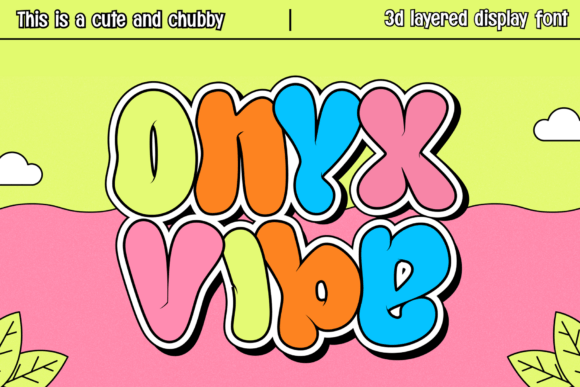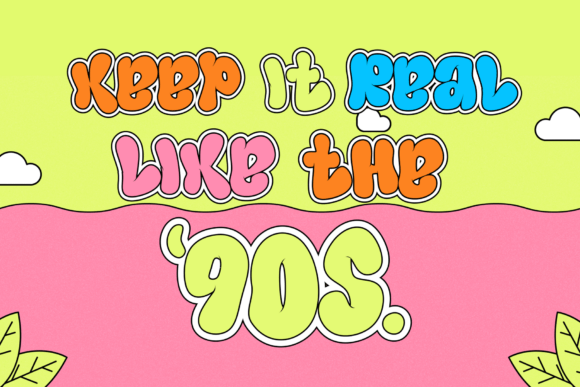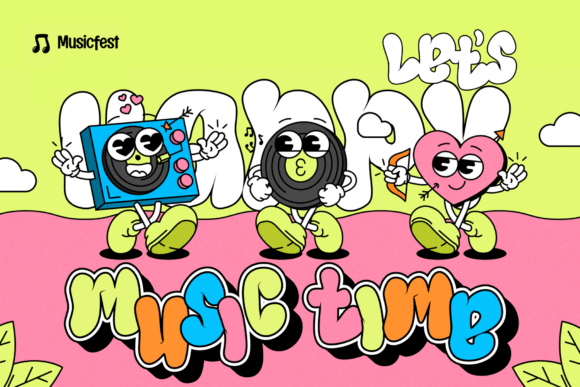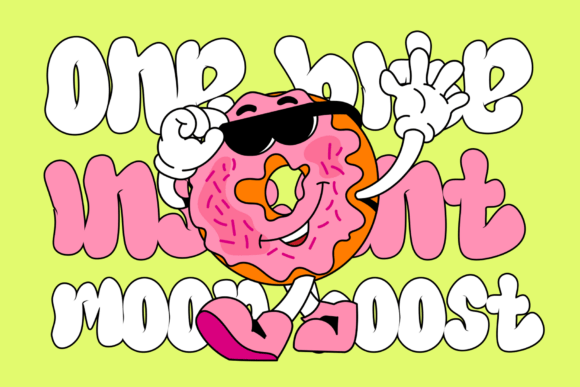
Onyx Vibe Font
About the Onyx Vibe Font
Add a touch of class to your work with the Onyx Vibe Font, a truly exceptional typeface. Introducing Onyx Vibe – embodying a delightful blend of playfulness and round-edged charm. This 3D layered display font embraces an affable silhouette that infuses a whole lot of joy and a bubbly flair into your designs. Enhanced with a multiple-layer style, Onyx Vibe creates an exhilarating depth that adds a fresh spin to your work.
Whether it’s a child-centric project, packaging needs, spirited branding initiatives, or peppy social media posts, Onyx Vibe is a superb choice for designs that call out for a splash of cute and audacious personality.
Let Onyx Vibe breathe life into your designs, injecting them with an irresistible blend of charm and 3D dynamism. Step into the world of captivating and unforgettable visuals with Onyx Vibe today!
Onyx Vibe Font Usage Examples
Onyx Vibe Font Example